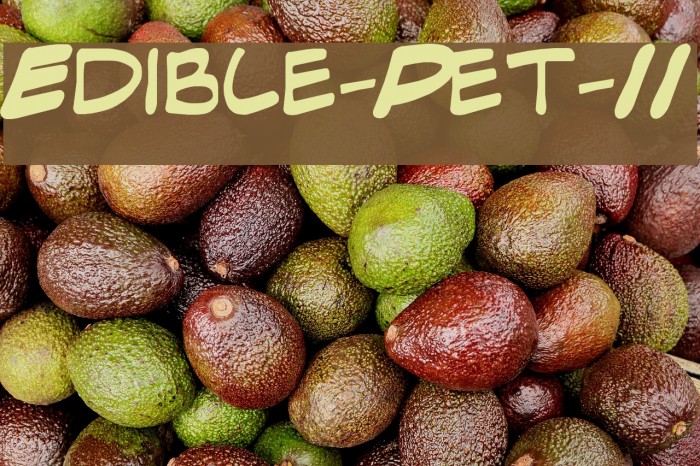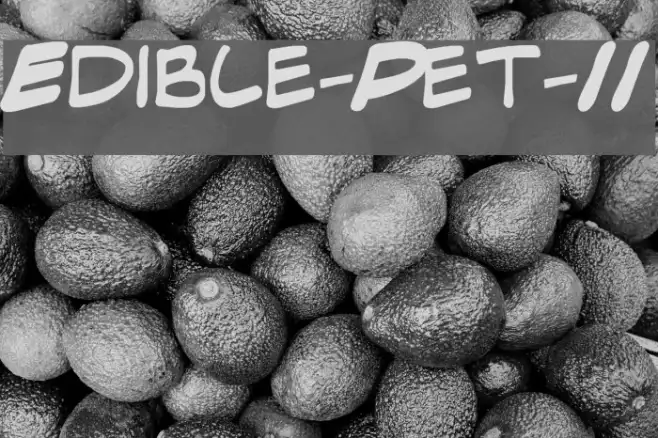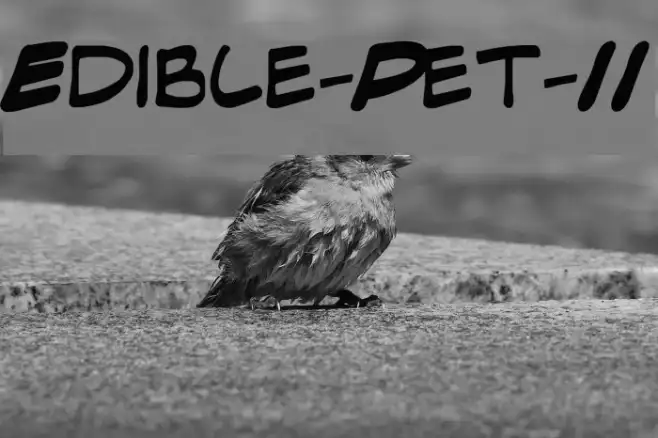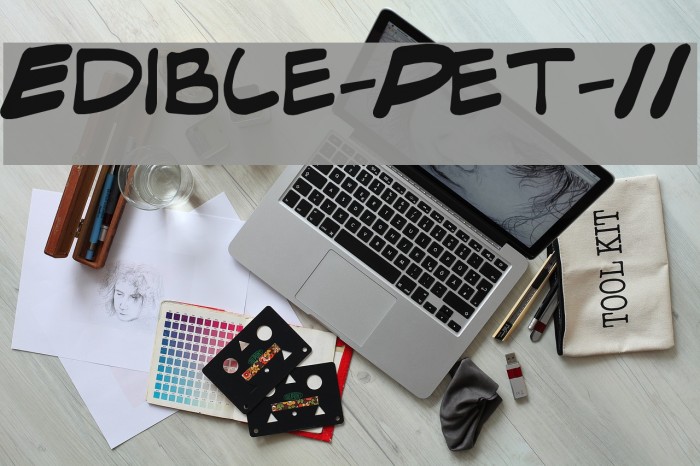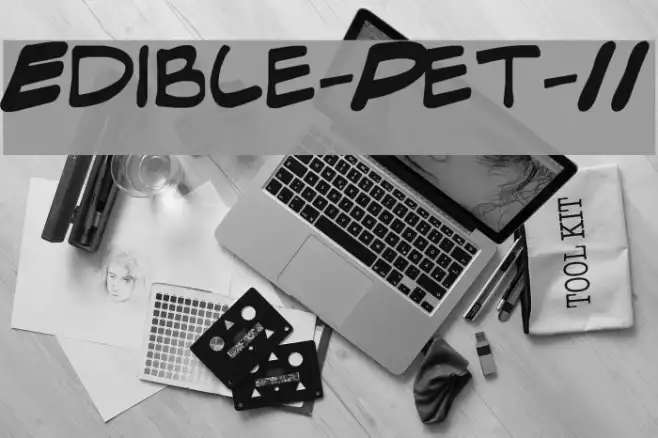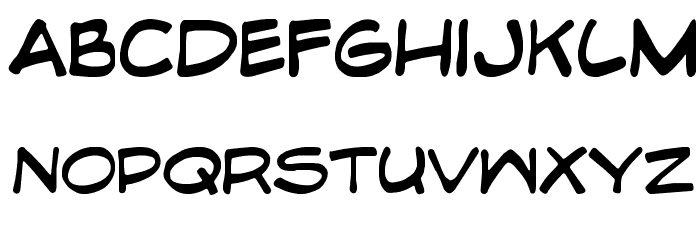
Edible-Pet-II Font
This font features a playful and bold style with a handwritten feel, characterized by its thick, rounded strokes and slightly slanted letters. The uppercase and lowercase letters maintain a consistent weight, providing a cohesive look across the alphabet. The numbers and special characters follow the same design principles, ensuring uniformity. Its casual and friendly appearance makes it suitable for projects that require a touch of whimsy and approachability. The font's design is both modern and versatile, making it a great choice for a variety of creative applications.
A playful, bold handwritten font with rounded strokes and a casual style.
• Proposed Projects: Ideal for children's books, comic strips, playful branding, and informal invitations.
• Category: Handwritten
• Overall Style: Playful
• Use Case: Headlines, Logos, Informal Text